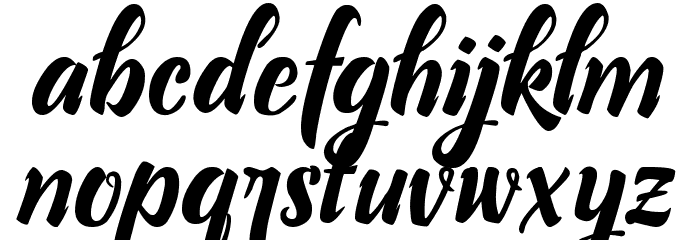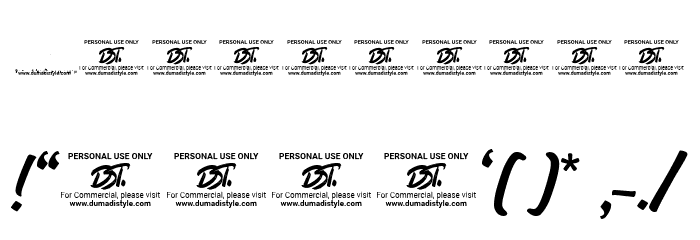
Bllastt Italic Font
This font features a bold and dynamic script style with a pronounced italic slant, giving it a sense of movement and flair. The characters are connected in a flowing manner, reminiscent of traditional calligraphy, yet with a modern twist. The uppercase letters are particularly striking, with exaggerated curves and flourishes that add a decorative touch. The lowercase letters maintain a consistent style, ensuring readability while still offering a unique aesthetic. The numbers and special characters are designed to complement the overall style, making them suitable for a variety of uses.
A bold, italic script font with a dynamic and decorative style.
- Proposed Projects: Ideal for branding, invitations, posters, and any project that requires a touch of elegance and personality.
- Category: Script
- Use Case: Logos, Headlines, Invitations